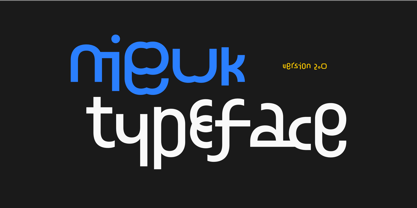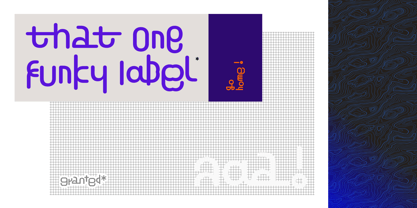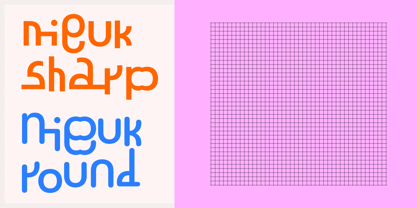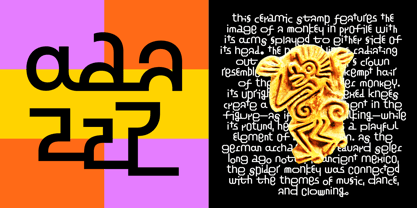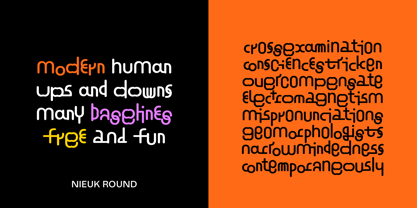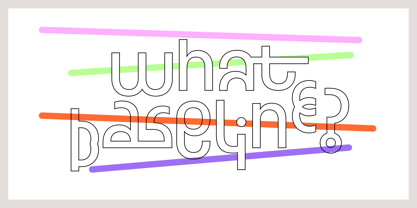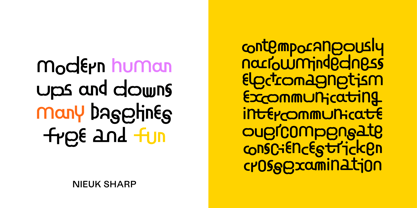
Nieuk
por multum
A família de fontes Nieuk foi desenhada por Maciej Połczyński e publicada pela multum. Nieuk contém 2 estilos e opções de pacote familiar. Saiba mais sobre esta família
Nieuk is a monolinear typeface built with three sets of characters that intertwine and connect. It creates unique, rhythmic headlines. The typeface available in two styles – Sharp and Round – can be applied to create logotypes and make a difference in an editorial project. The aesthetic could be recognised as glitchy or perhaps silly – there is no single baseline and the construction of the glyphs can be sometimes like a scanner–morphing. Built with and requires using Contextual Alternates OpenType Feature (calt). The initial release of the typeface was in 2018.
Designers: Maciej Połczyński
Fundição: multum